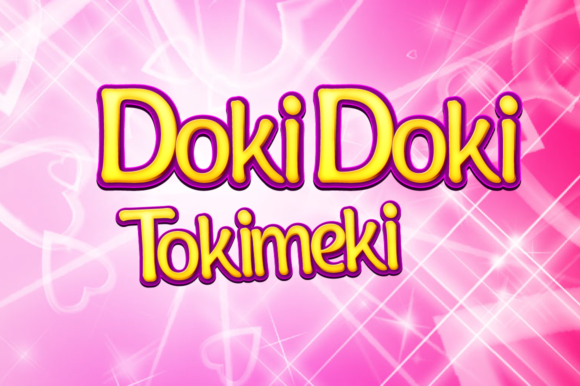
Love at First Sight: Discovering the Perfect Font for Your Heartfelt Projects
Do you remember that moment when you stumbled upon the perfect font, and your creative heart skipped a beat? It’s a feeling we designers know all too well, and for those working on romantic text-based projects, that moment just got a whole lot sweeter.
Meet Doki Doki Tokimeki Family Font, a charming sans serif font designed with visual novels and romantic text in mind. This font is more than just a pretty face – it’s a thoughtful blend of playful, friendly letters, heart dingbats, and adorable alternate Os replaced with hearts. Whether you’re crafting a love story or simply want to add a touch of romance to your design, the Doki Doki Tokimeki Family Font is sure to capture the hearts of your audience.
Doki Doki Tokimeki Family Font Key Features
- Font Family: Doki Doki Tokimeki Family, a unique and playful font designed for various digital applications.
- Font Styles: The font family includes multiple styles such as Regular, Italic, Bold, and Bold Italic, providing flexibility for designers.
- Character Set: Supports a wide range of languages, including Latin, Cyrillic, and Greek alphabets, making it suitable for international applications.
Doki Doki Tokimeki Family Font Review
Overall, I’m really excited about the Doki Doki Tokimeki Family Font! ✨ It’s a unique and playful font that’s perfect for designers looking to add a touch of whimsy to their projects. The font is highly customizable, allowing users to adjust the thickness, spacing, and even the texture of the letters.
- Customization options are endless, making it perfect for designers who want to get creative.
- The font is highly legible, even at smaller sizes.
- It’s a great choice for designers who want to add a touch of nostalgia to their projects.
However, there are a few limitations:
- The font can be a bit overwhelming if used extensively throughout a project.
- Some of the characters may not be as accurately rendered as others.
- It may not be the best choice for formal or professional projects.
Overall, I think the Doki Doki Tokimeki Family Font is a great addition to any designer’s toolkit. With its endless customization options and playful aesthetic, it’s perfect for designers who want to add a touch of personality to their projects. Just be aware of its limitations, and use it judiciously.
Use the Doki Doki Tokimeki Family Font for creative and playful designs, such as:
1. Anime and manga-inspired artwork.
2. Valentine’s Day and romantic-themed designs.
3. Whimsical and fantasy-themed designs.
Remember to use the font in moderation and balance it with other design elements to avoid overwhelming your design.
Alternatives to Doki Doki Tokimeki Family Font
Cute Font
Cute Font is a playful and whimsical font that is perfect for designs that require a lighthearted and childlike feel. It features rounded edges and simple shapes, making it easy to read and fun to use. When to use: Children’s products, cartoons, and other designs that require a youthful and innocent vibe.
Comparison to Doki Doki Tokimeki Family Font: Cute Font is more straightforward and less complex than Doki Doki Tokimeki Family Font, making it a better choice for simple designs. It lacks the intricate details and subtle nuances of Doki Doki Tokimeki Family Font, but still conveys a sense of playfulness and fun.
Great Vibes is a modern and stylish font that is perfect for designs that require a sense of sophistication and elegance. It features clean lines and a minimalist aesthetic, making it easy to read and versatile to use. When to use: Fashion designs, luxury brands, and other designs that require a high-end feel.